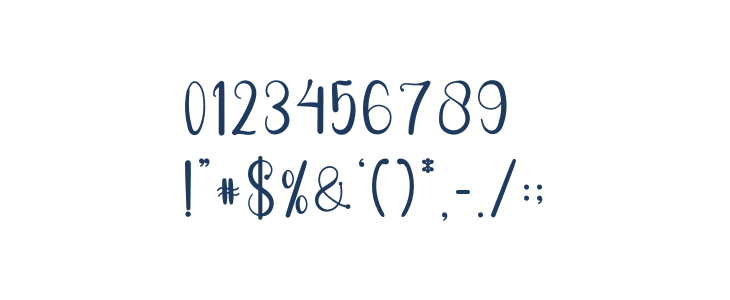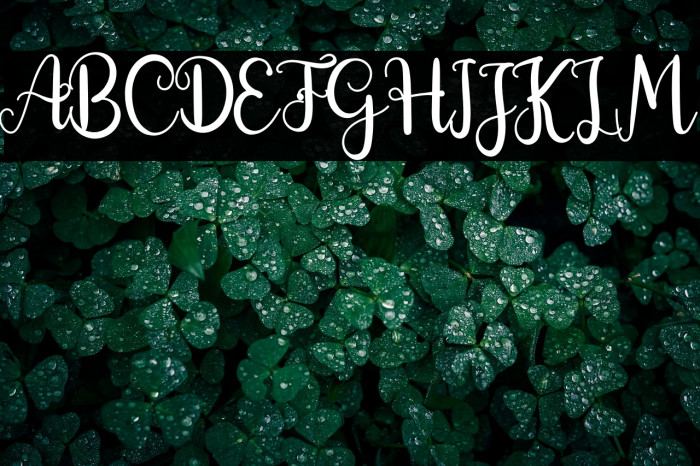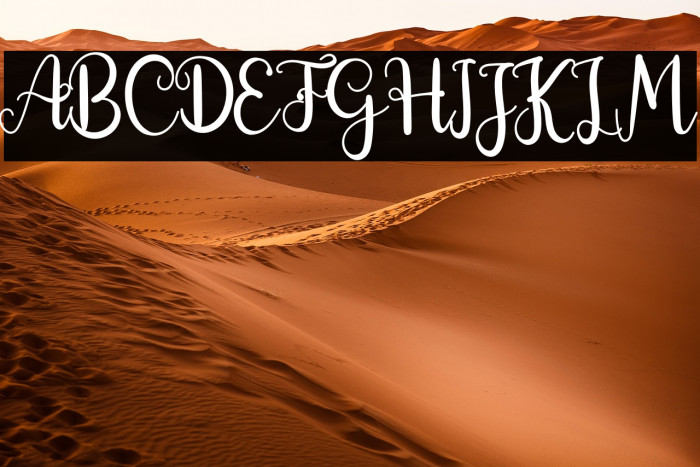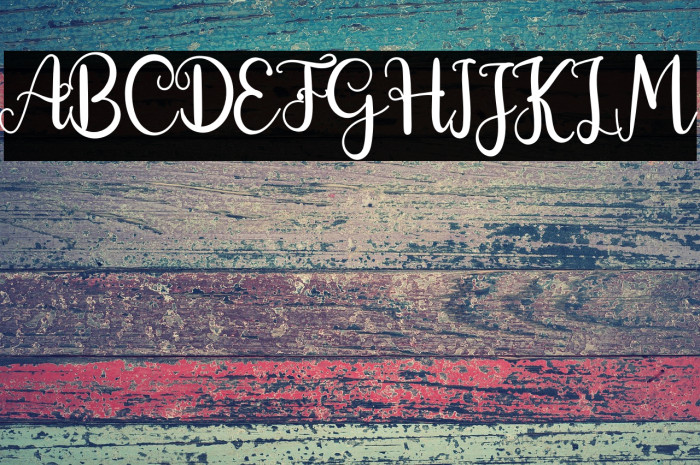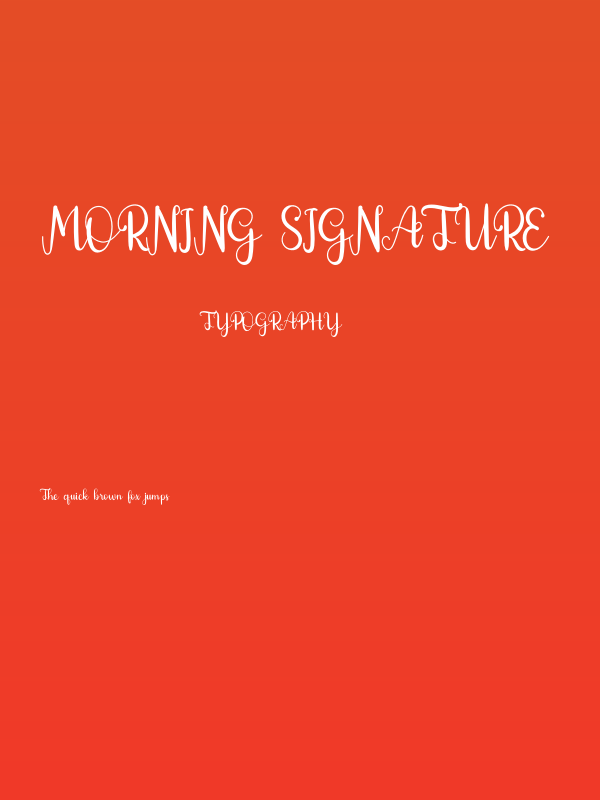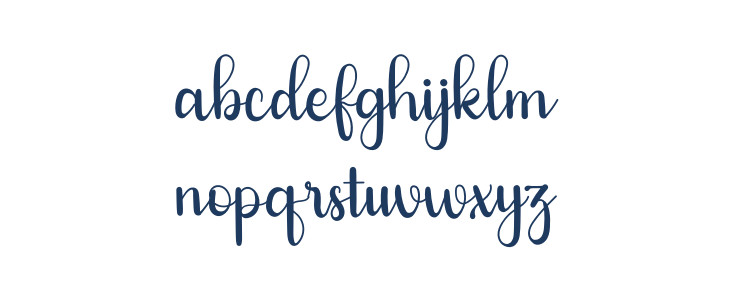
Morning Signature Font
Morning Signature Description
This font features a flowing, cursive style that exudes elegance and sophistication. The uppercase letters are characterized by their sweeping curves and loops, giving a sense of movement and grace. The lowercase letters maintain a consistent style with a slightly more restrained flourish, ensuring readability while retaining the font's decorative nature. The numerals are clear and legible, with a slight slant that complements the overall script style. Special characters are designed to match the font's aesthetic, making it versatile for various uses. The font's smooth lines and balanced proportions make it suitable for projects that require a touch of elegance and personal flair.
| Overall Style | Elegant, Decorative |